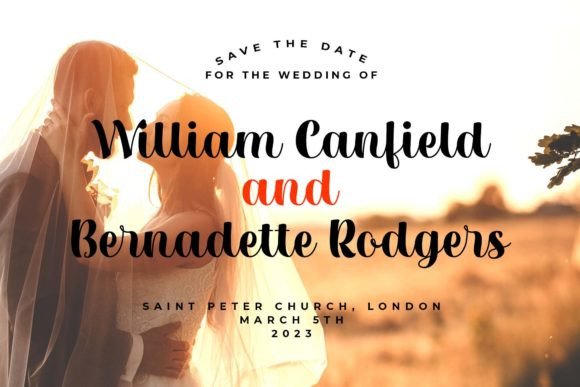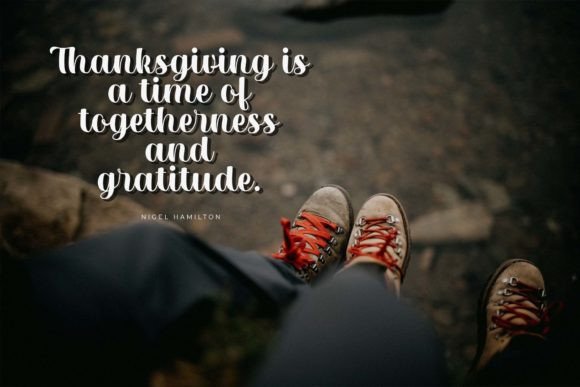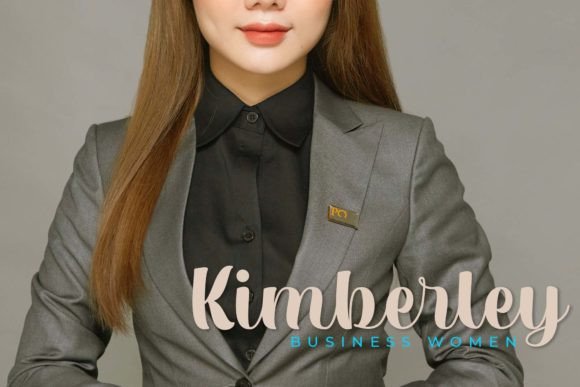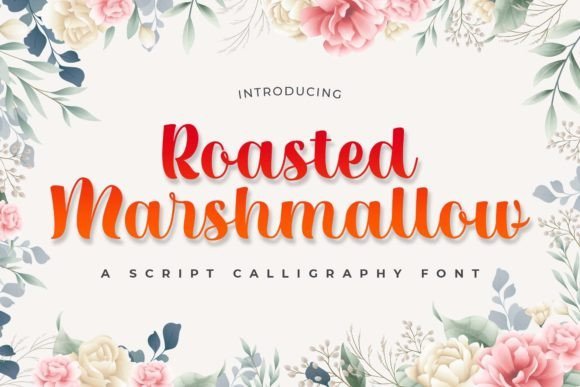
Introduction to Roasted Marshmallow Font
Roasted Marshmallow is simple and beautiful script font.
It has a simple and natural handwritten script look which can be used for logos, branding, invitations, stationary, wedding designs, social media posts, and every other design that needs a handwritten touch .
Key Features of Roasted Marshmallow Font
Why Choose Roasted Marshmallow Font?
Roasted Marshmallow Font offers exceptional quality and versatility, making it a valuable addition to your design toolkit. Whether you’re creating for personal projects or commercial use, Roasted Marshmallow Font delivers professional results.